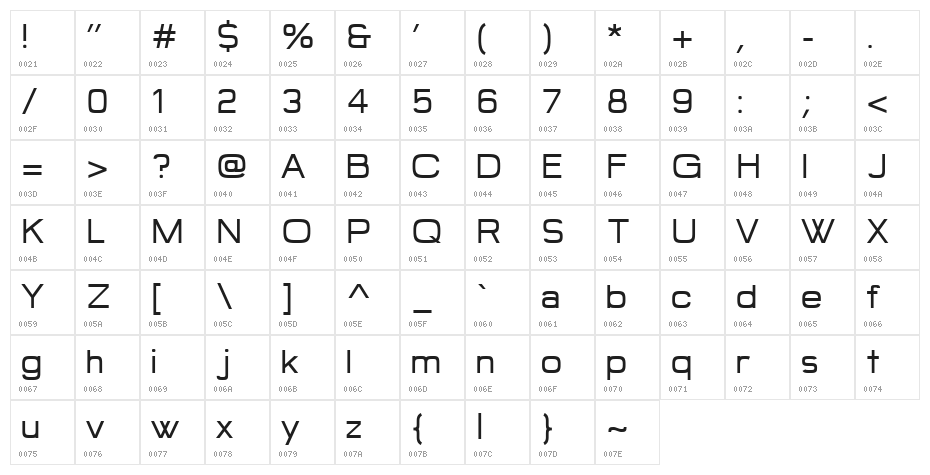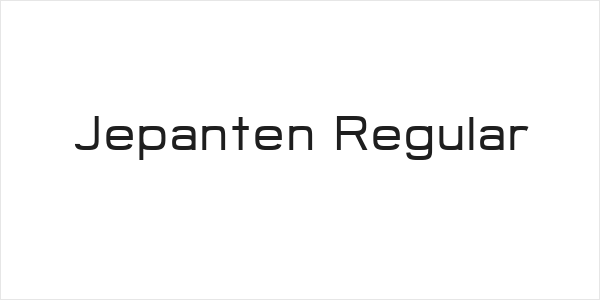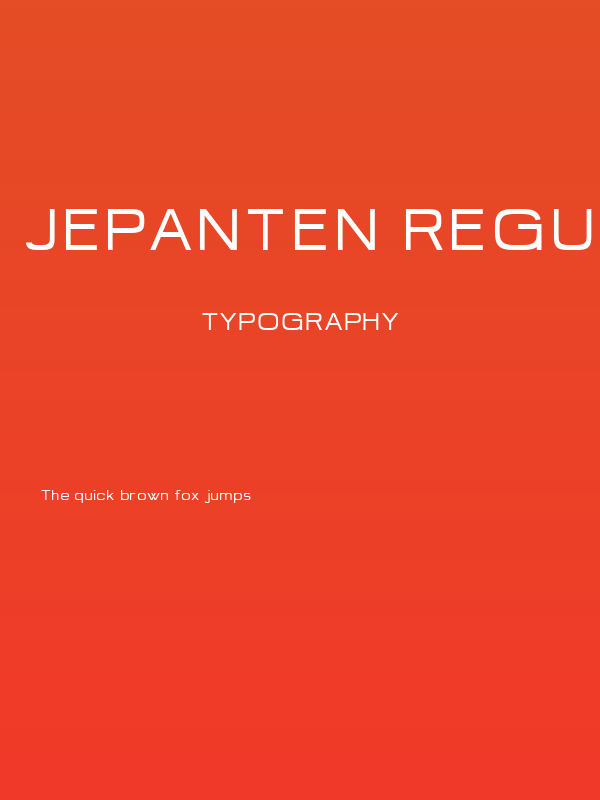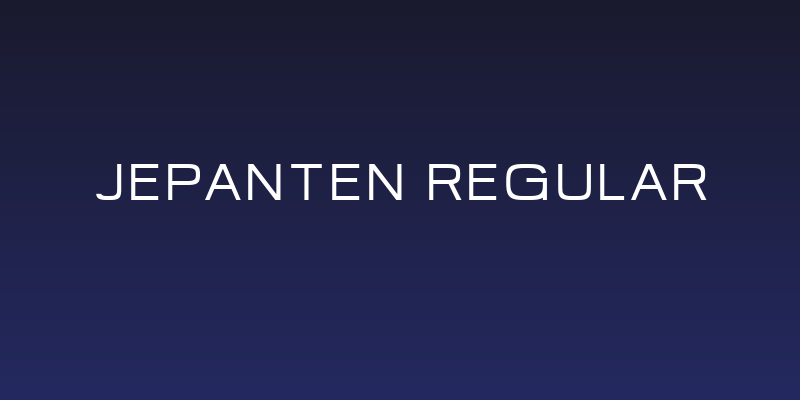
Jepanten Regular Font
Jepanten Regular Description
This font features a clean and modern sans-serif design with a geometric structure. The characters are well-balanced, offering a uniform appearance that is both professional and approachable. The uppercase letters are bold and assertive, while the lowercase letters maintain a consistent height and width, contributing to the font's readability. The numerals are clear and distinct, making them suitable for a variety of applications. Special characters are included, providing versatility for different contexts. The overall style is sleek and contemporary, making it ideal for digital and print media.
| Proposed Projects | Ideal for corporate branding, web design, digital media, and print materials. |